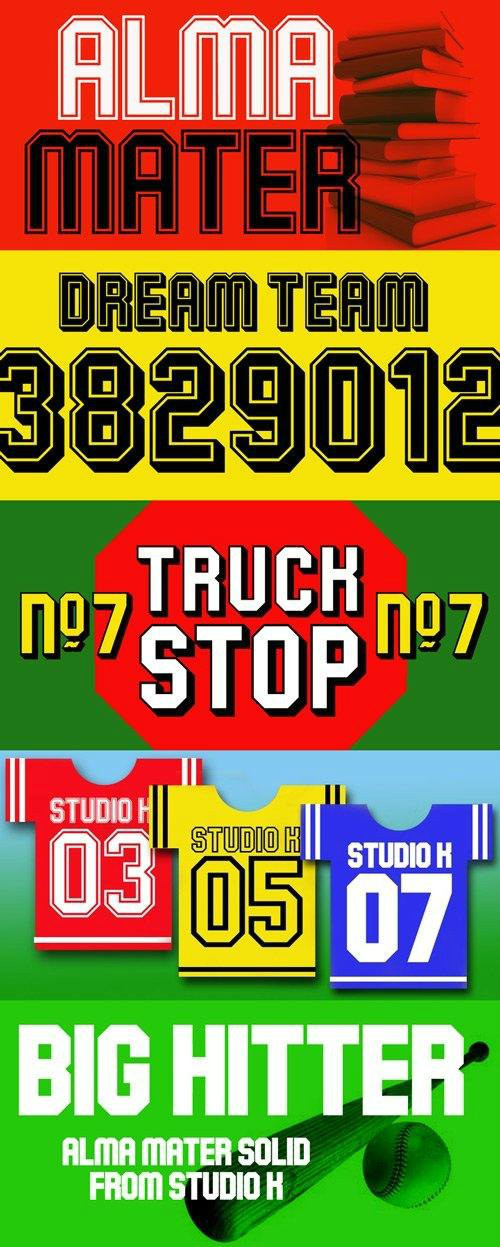
Alma Mater Font
As the Latin tag for one’s college or university, Alma Mater seemed to me to be an appropriate title for a font family reminiscent of the lettering commonly used on college sweaters and and sports jerseys.